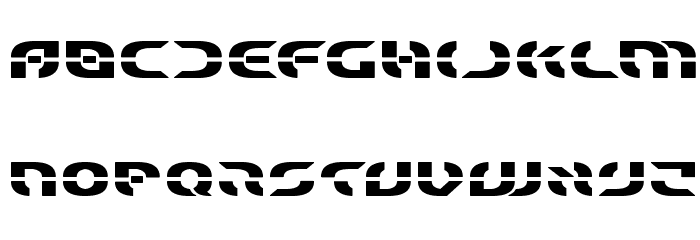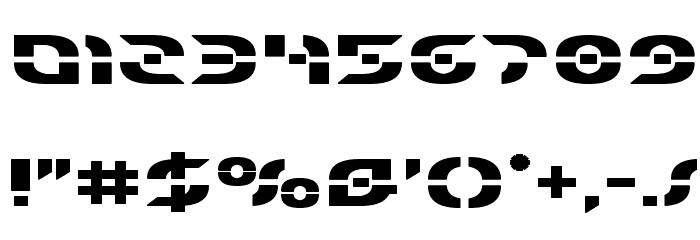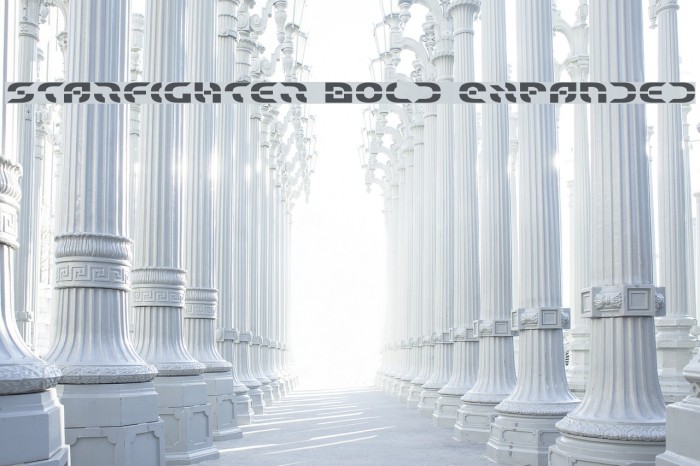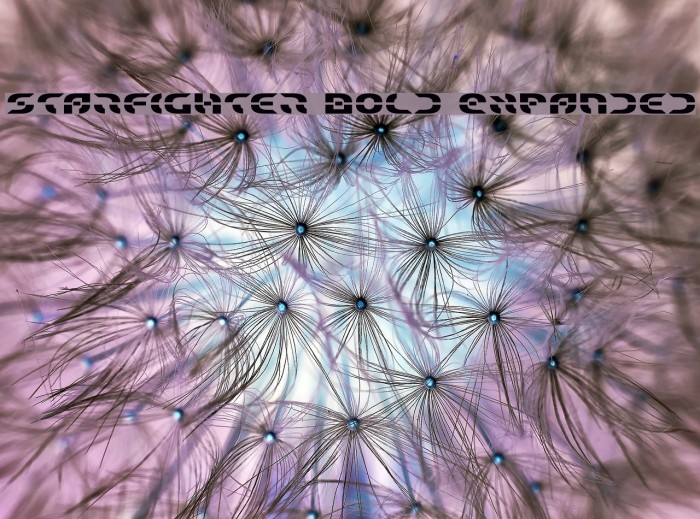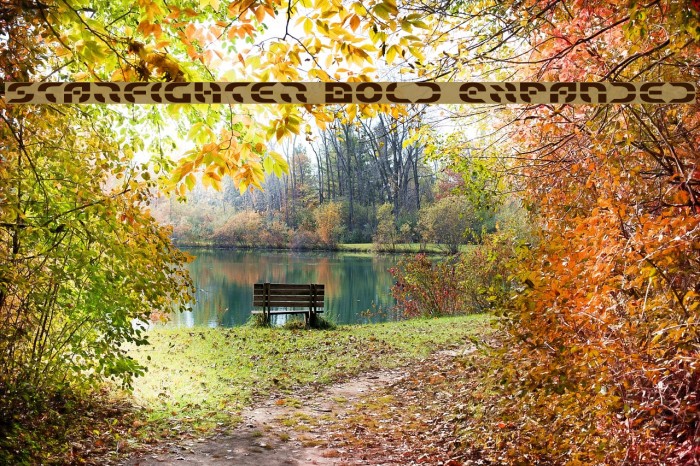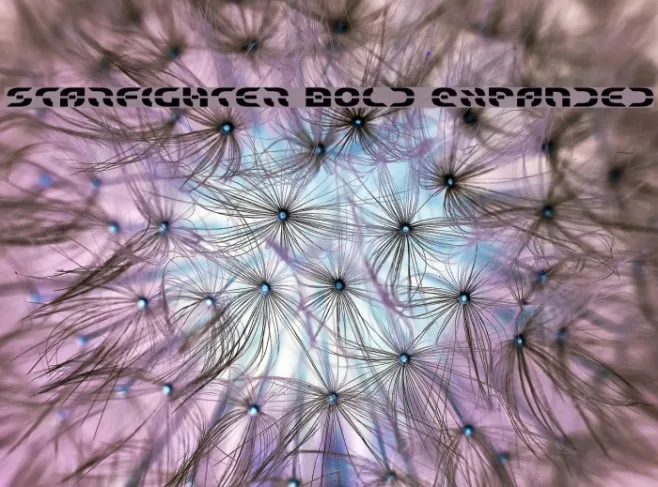
Starfighter Bold Expanded Font
This font exhibits a futuristic and bold design, characterized by its expanded width and geometric shapes. The letters are constructed with a series of disconnected segments, creating a digital and mechanical appearance. The uppercase and lowercase letters maintain a consistent style, with sharp angles and a strong presence. The numbers and special characters follow the same aesthetic, ensuring uniformity across all glyphs. This font's unique style makes it stand out, ideal for projects that require a modern and tech-inspired look.
A futuristic, bold, and expanded font with geometric and segmented letterforms.
- Proposed Projects: Ideal for sci-fi themed designs, video game titles, technology branding, and futuristic posters.